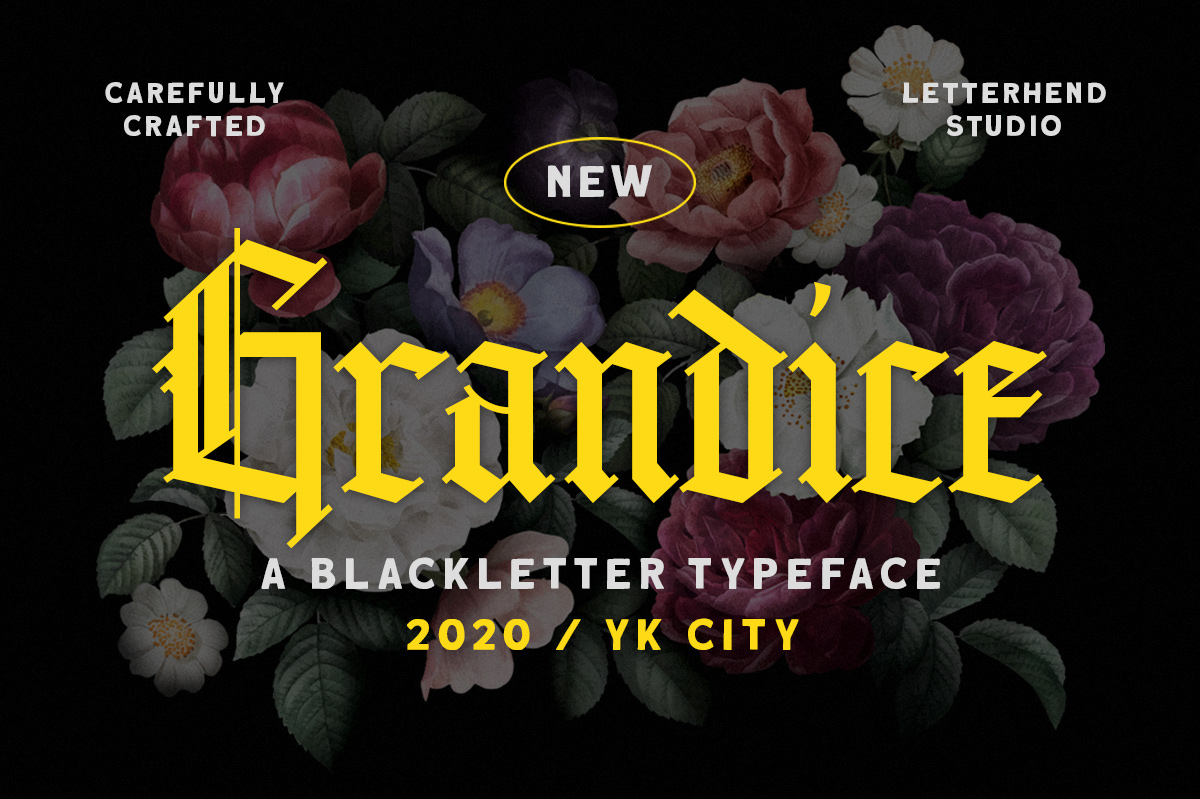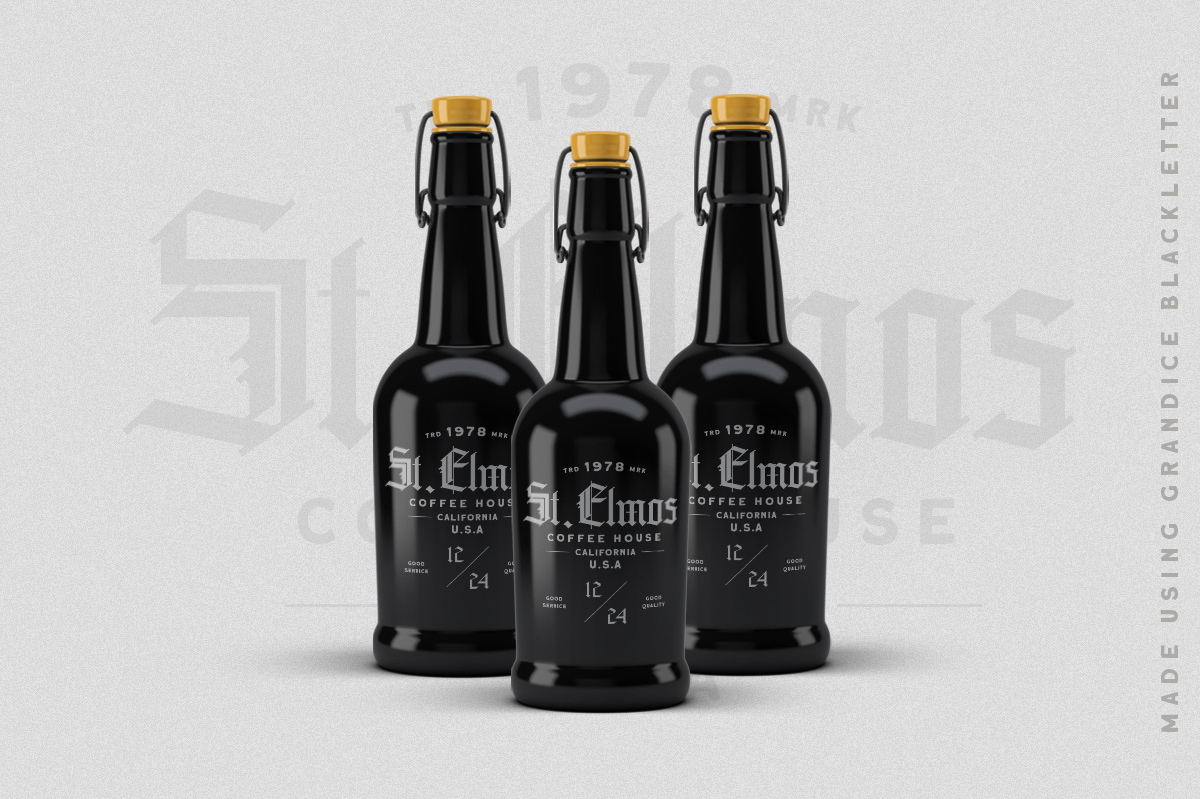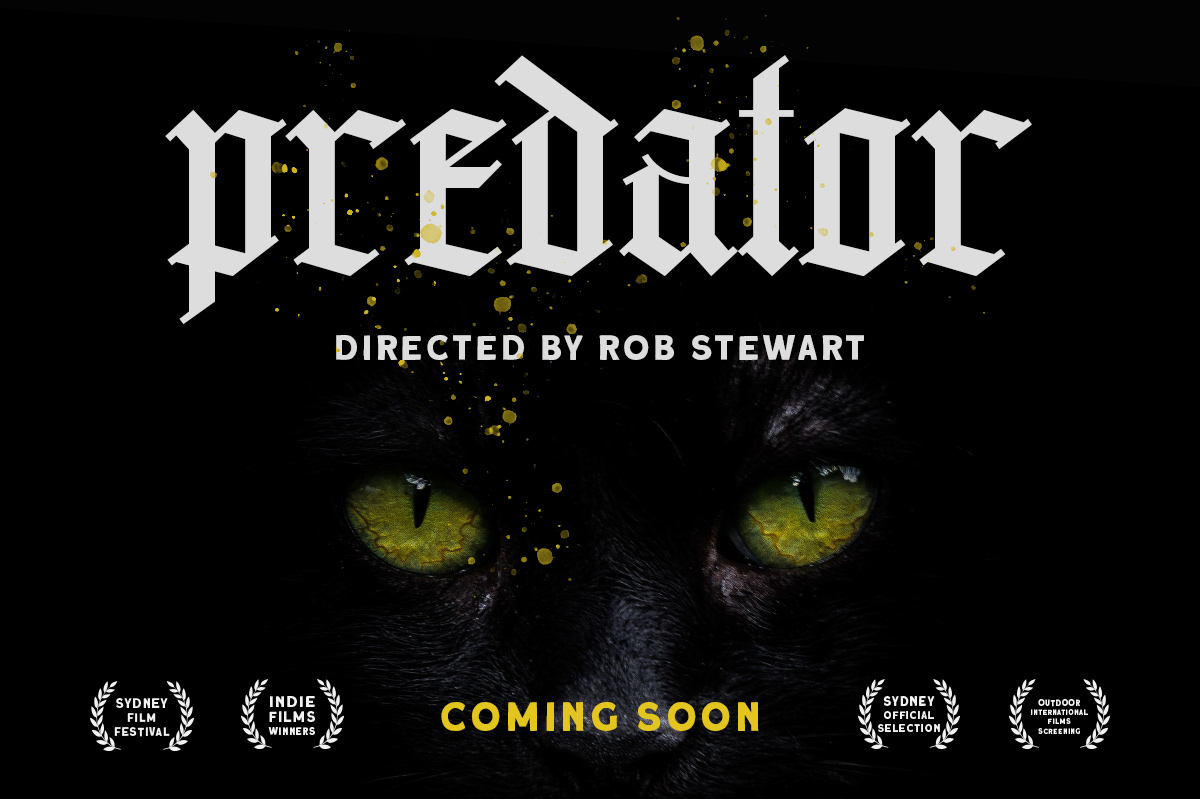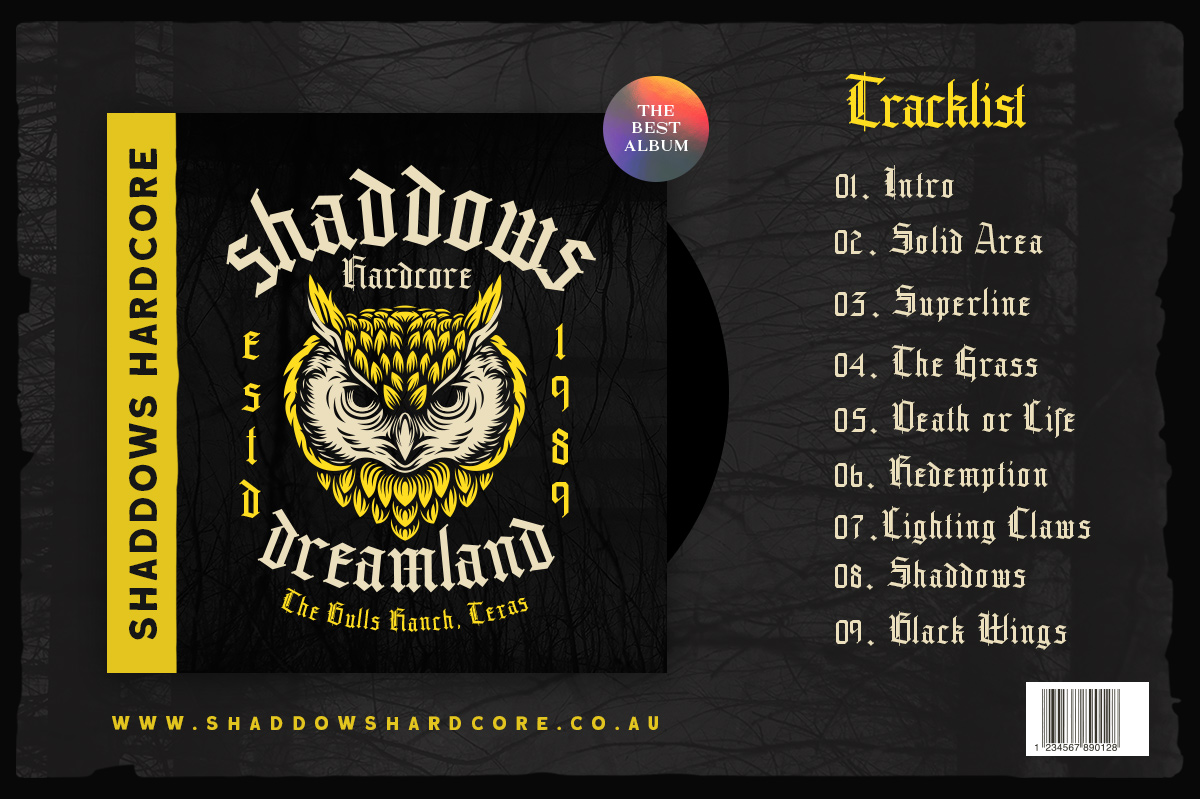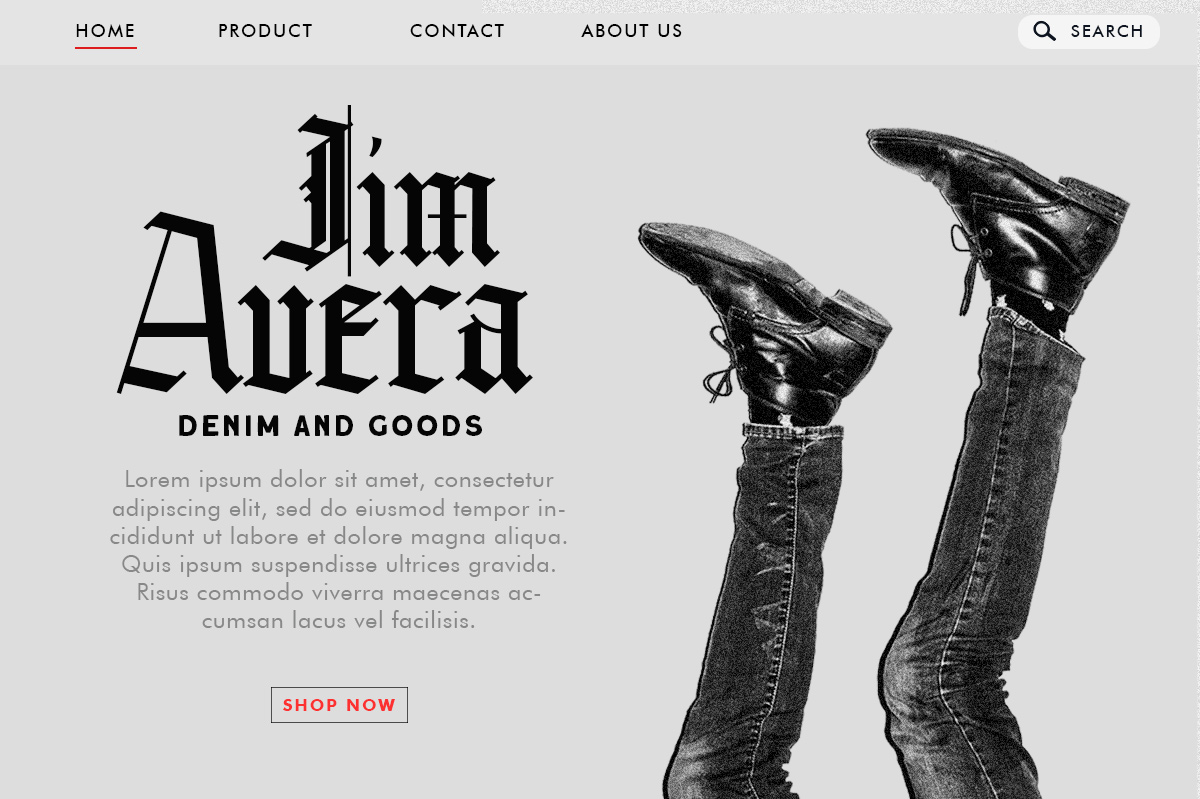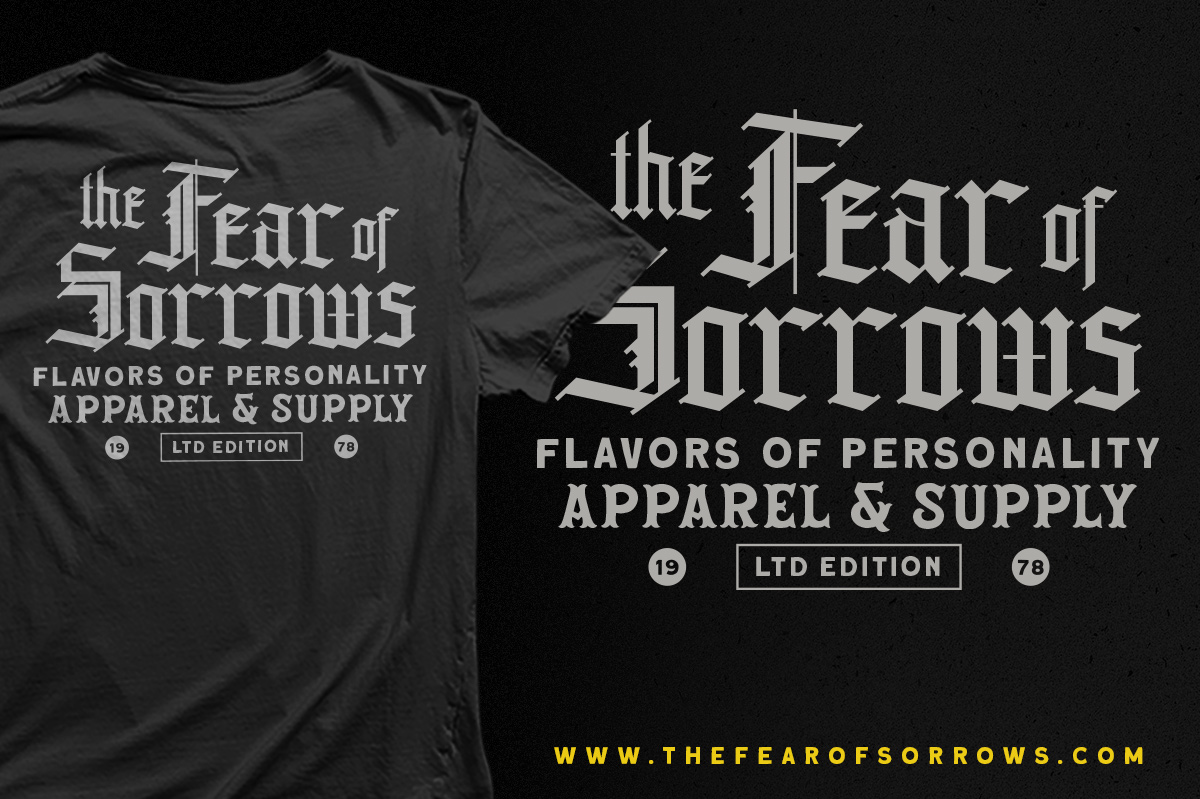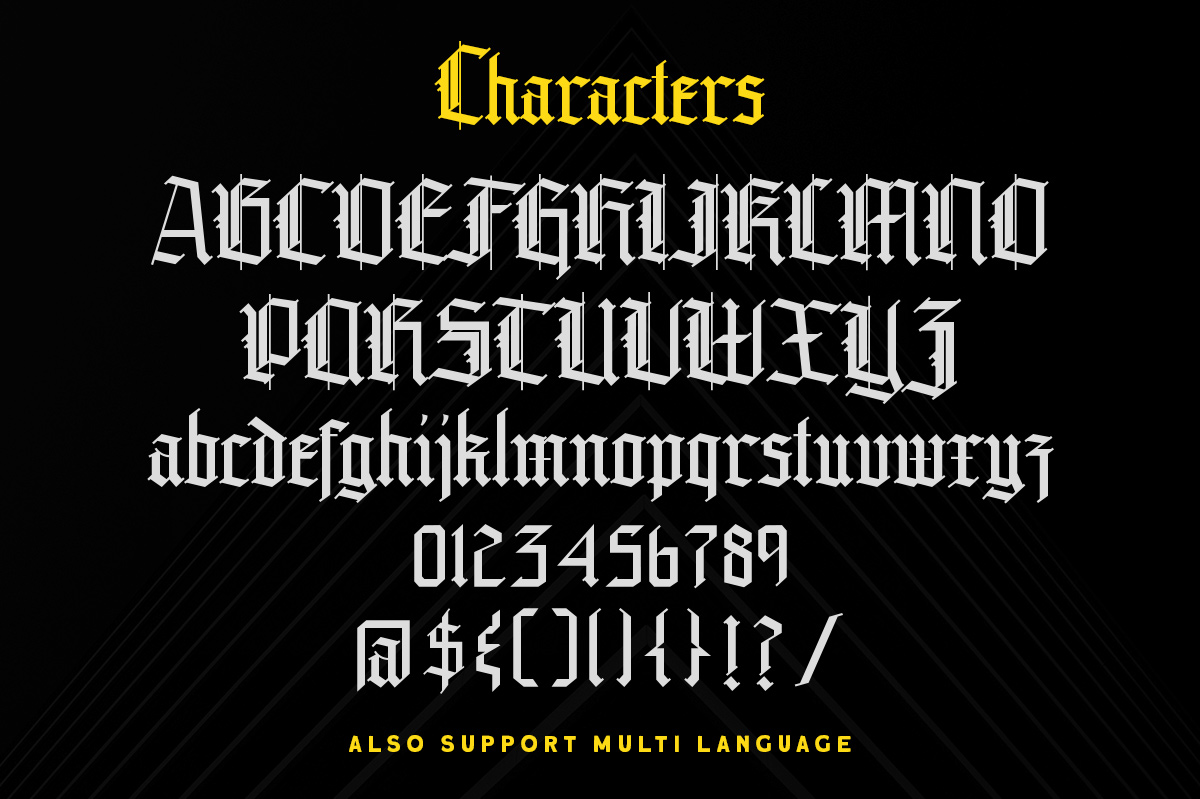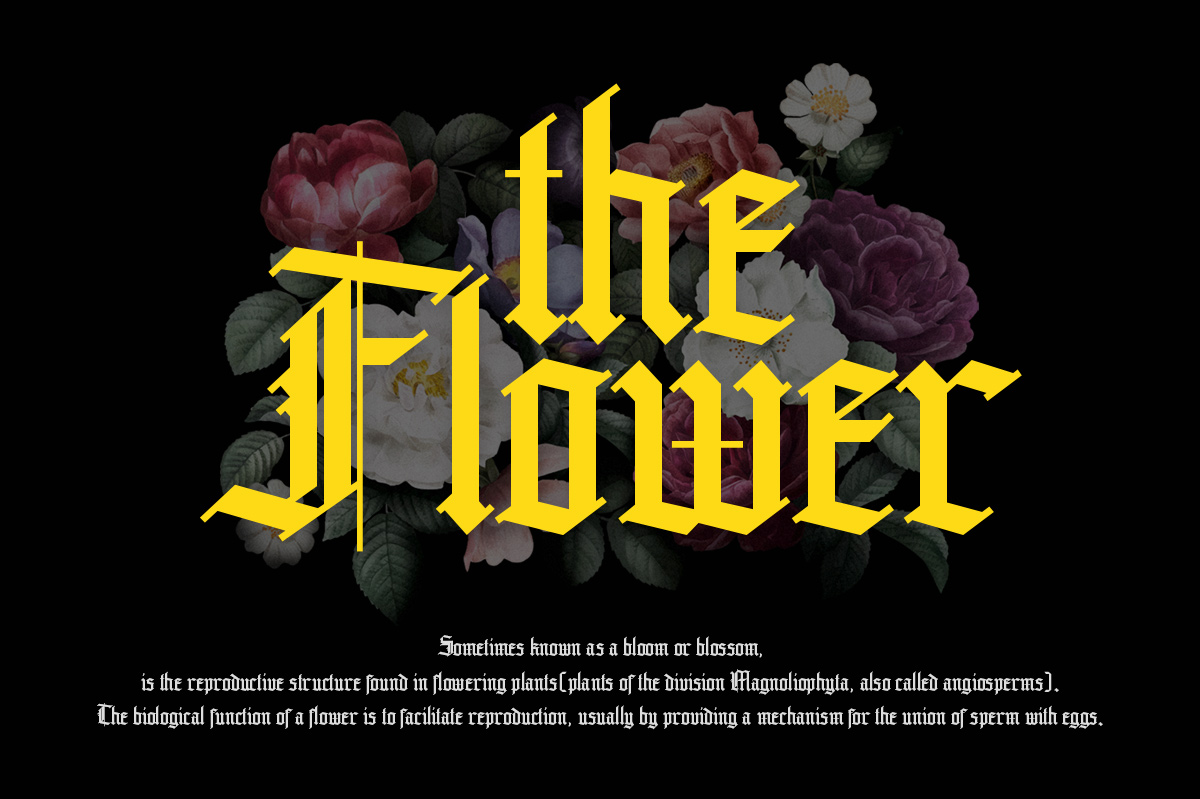
Introducing, Grandice– A blackletter typeface. This type of font perfectly made to be applied especially in logo, and the other various formal forms such as Logo, Clothing, Fashion, Headline, or any type of advertising purpose.
Features :
- uppercase & lowercase
- numbers and punctuation
- stylistic alternate
- multilingual
Grandice – Blackletter Typeface